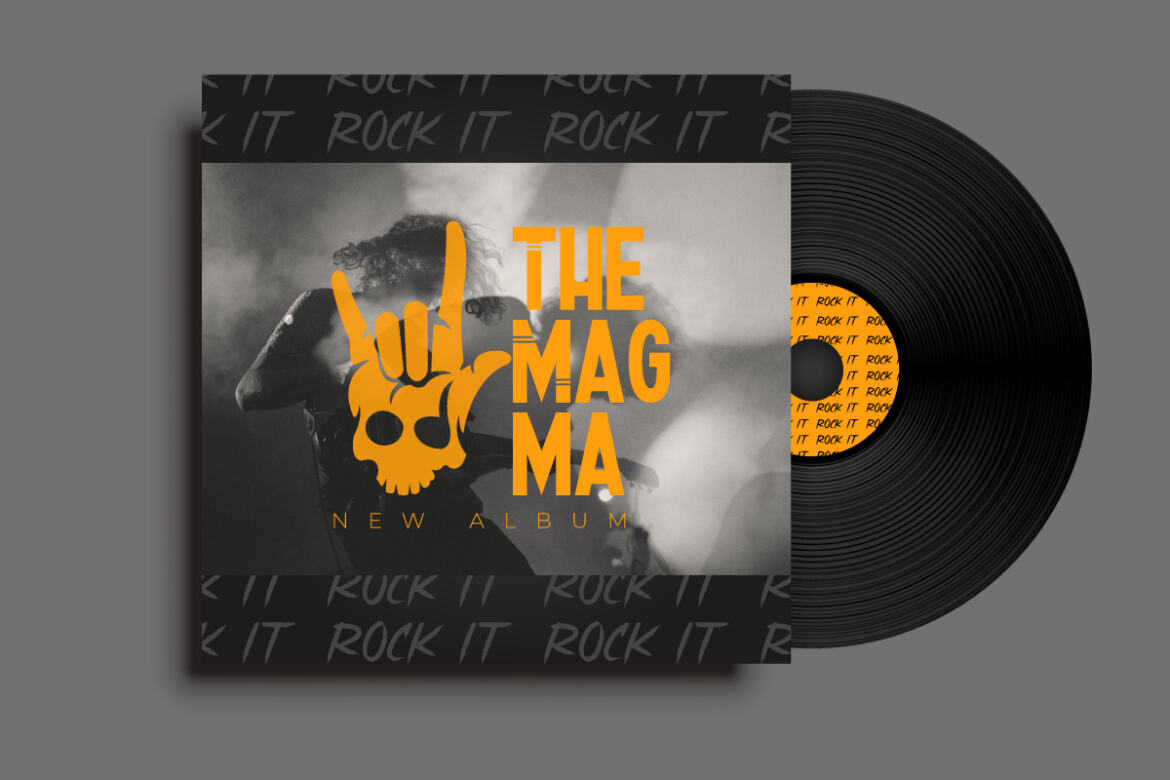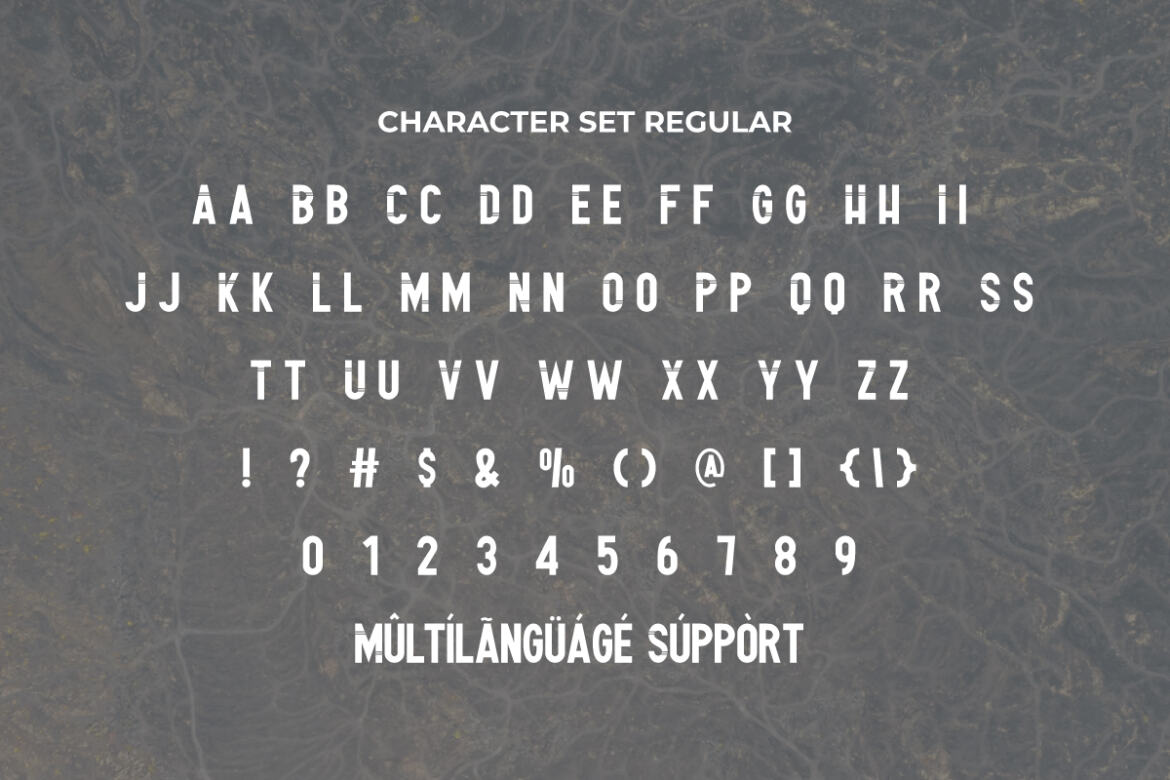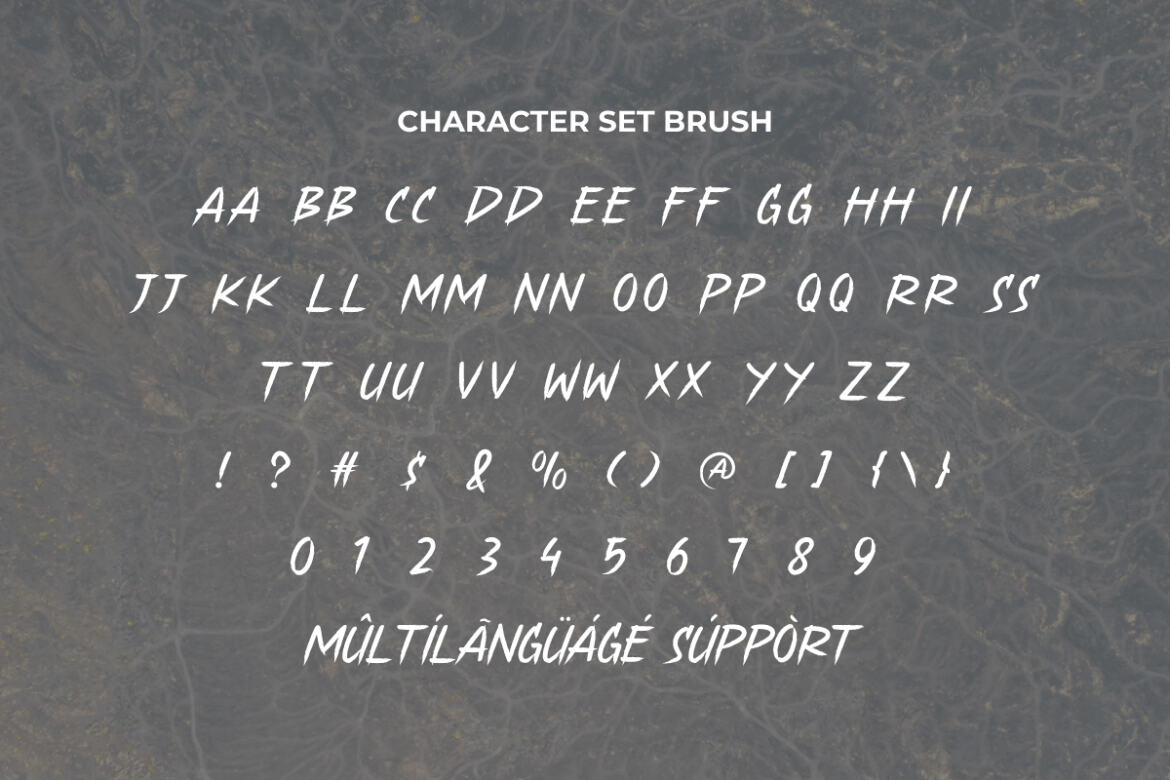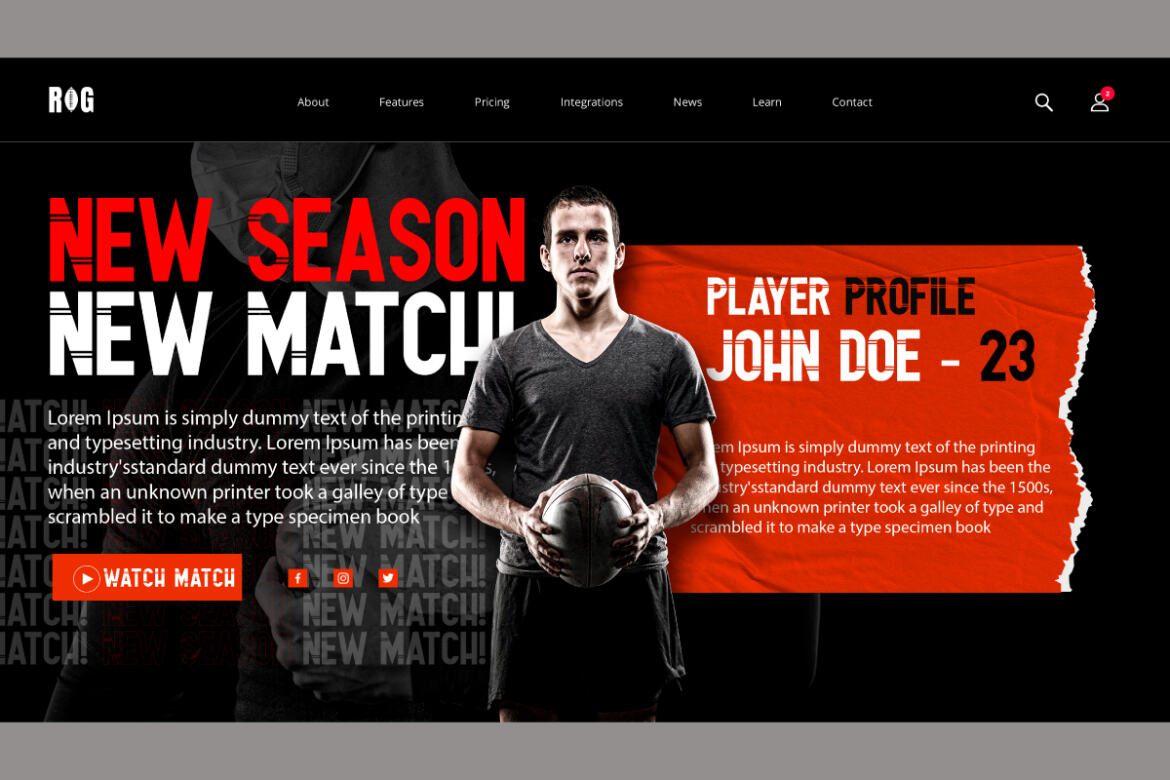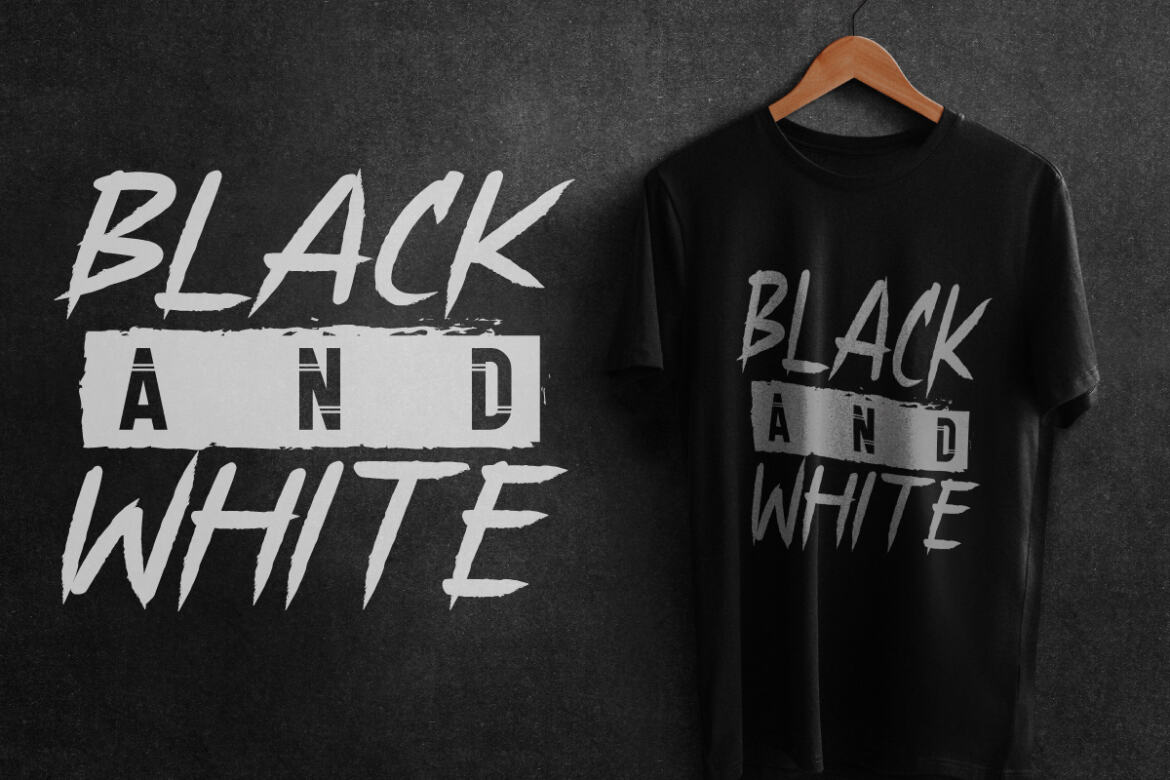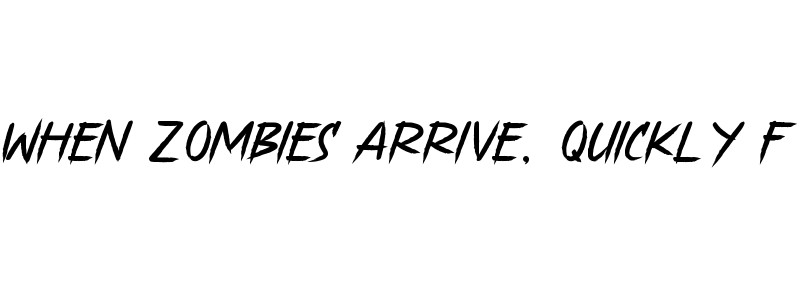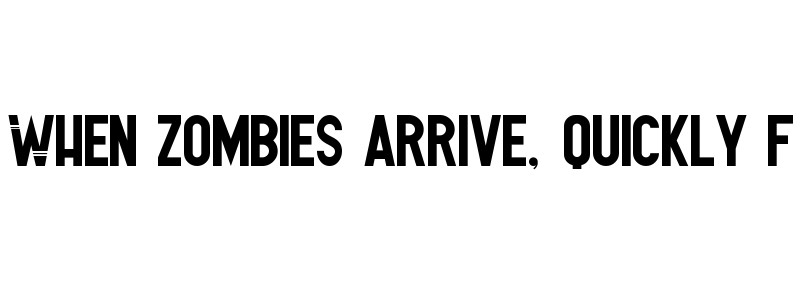
Magma Break FREE Font Duo
Magma Break Font is a new font duo with two styles : Unique Sans Display and Textured hand lettered Script. The font has a sporty modern look style that will be great for many business such as games, music,  sports, and more. Its name is inspired by the rock that produces volcanic eruptions called magma. This Striped Sans & Textured Script font duo blend perfectly together. The two included styles can be combined together perfectly but are also beautiful on their own. The fonts will be ideal for logos, merchandise, music industry, sports themed website & more. you will get:
Magma Break Font  includes ALLCAPS with one size same between uppercase and lowercase characters, full set of numerals & punctuation. Also supports Multi accents letters. This font is tested works on Windows and MacOS, even work on Microsoft Word.